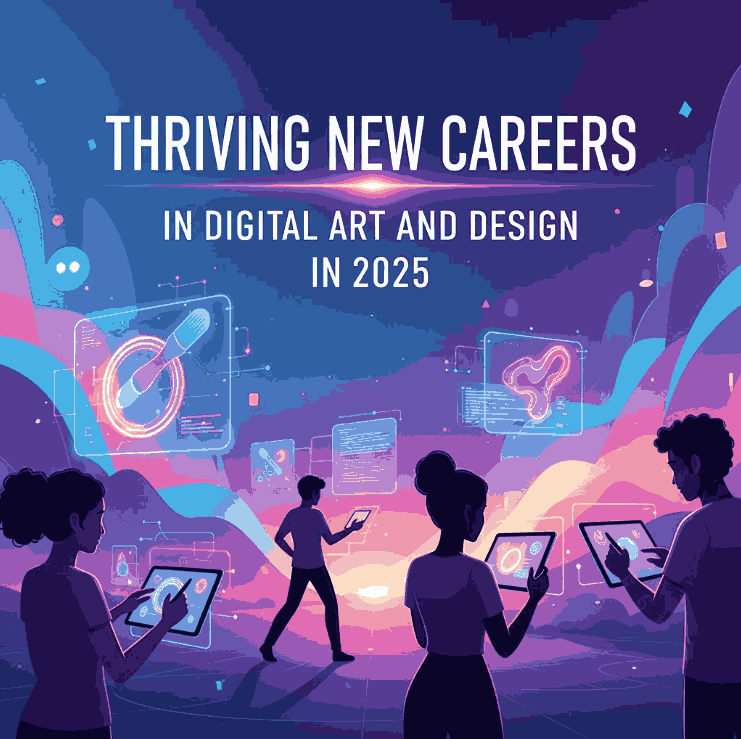
1. Introduction
In today’s visually driven world, Careers in Digital Art and Design have become more valuable than ever. From social media visuals to brand identities and video games, digital artists shape how we experience creativity online. As technology continues to evolve, new opportunities are emerging for those who blend artistic vision with digital innovation.
2. What Is Digital Art and Design?
Digital art and design refer to the creative use of technology to produce visual experiences — whether through illustrations, animations, web design, or 3D modeling. It merges creativity with technical proficiency, allowing artists to communicate messages, emotions, and stories in dynamic new ways.
Digital designers often work across industries such as advertising, gaming, film, web development, and product design. Their work influences everything from logos and mobile apps to virtual reality experiences.
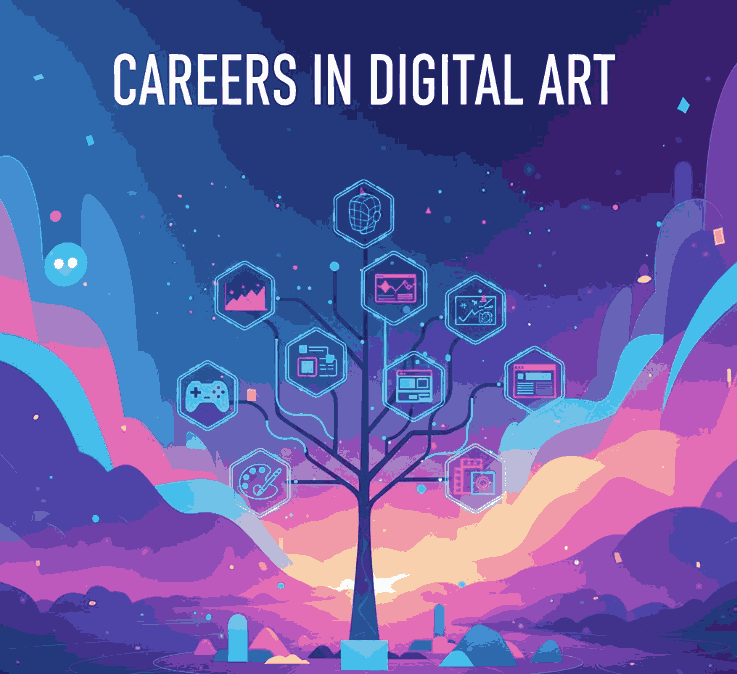
3. Why Choose a Careers in Digital Art and Design?
There are countless reasons why creative individuals are drawn to this field:
- High demand: Businesses constantly need digital visuals for marketing and branding.
- Creative freedom: You can express yourself artistically while solving design challenges.
- Remote opportunities: Many roles in digital art can be done from anywhere.
- Diverse industries: From fashion to tech startups, design skills are universally valued.
According to Adobe’s Digital Trends Report, creative professionals who embrace new technologies such as AI and 3D design are seeing faster career growth than ever before.
4. Top Paths in Careers in Digital Art and Design
4.1 Graphic Designer
A graphic designer creates visual content for both print and digital media — logos, posters, social media ads, and more. Their goal is to make information visually appealing and easy to understand.
4.2 Motion Graphics Artist
These designers specialize in animation and video effects, often for YouTube intros, advertisements, or movie credits. Mastering software like After Effects or Blender is crucial for success in this field.
4.3 UX/UI Designer
A User Experience (UX) and User Interface (UI) designer focuses on creating smooth, intuitive digital experiences for apps and websites. This role blends psychology, coding basics, and visual design.
4.4 Game Artist
Video game artists design characters, environments, and visual effects that bring virtual worlds to life. With gaming being one of the fastest-growing industries, demand for talented game artists continues to soar.
4.5 Digital Illustrator
Illustrators craft custom visuals for books, branding, packaging, and web content. Many freelance artists build loyal clients through platforms like Behance or Dribbble.
5. Essential Skills for Success
To thrive in digital art and design, aspiring professionals should develop:
- Creativity and visual storytelling
- Knowledge of color theory and composition
- Digital painting and typography skills
- Understanding of branding and marketing principles
- Adaptability to new design trends and tools
Continuous learning is vital. Many successful designers invest in online courses or design bootcamps to sharpen their skills.
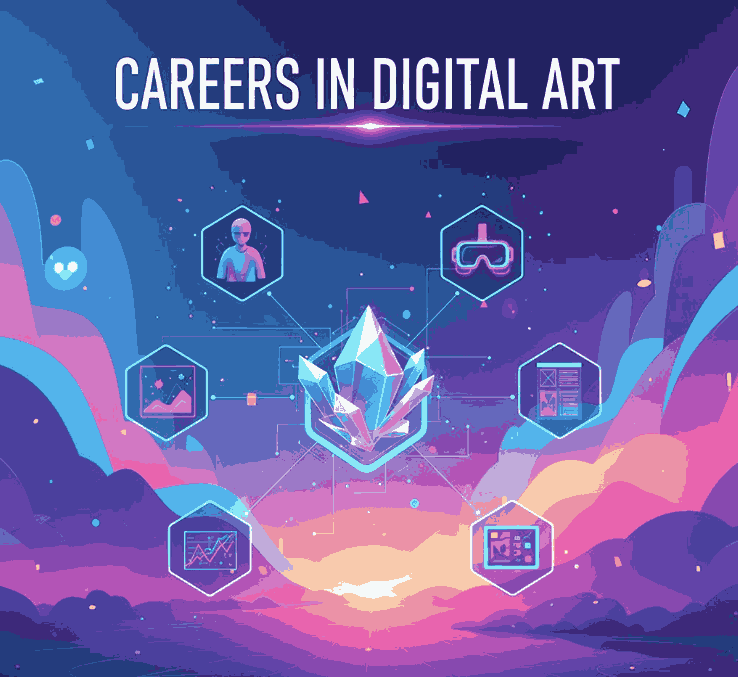
6. Tools and Software Every Careers in Digital Art Should Know
Proficiency in design software can define your career success. Essential tools include:
- Adobe Creative Cloud (Photoshop, Illustrator, After Effects)
- Procreate for digital painting
- Figma for UX/UI design
- Blender or Cinema 4D for 3D modeling
- Canva for quick visual layouts
7. Building a Strong Portfolio
A powerful Careers in Digital Art portfolio showcases your creativity, technical skill, and personal style. Include a mix of completed projects and conceptual work.
If you’re building your own design website, consider pairing your visuals with unique font styles to reinforce your brand identity.
You can explore professional-quality fonts from CalligraphyFonts.net, such as:
- Daylighted Font – A modern serif font with timeless elegance.
8. How Fonts Influence Careers in Digital Art and Branding
With the right skills, mindset, and visual tools (like fonts and colors), you can turn your artistic passion into a sustainable and rewarding career.